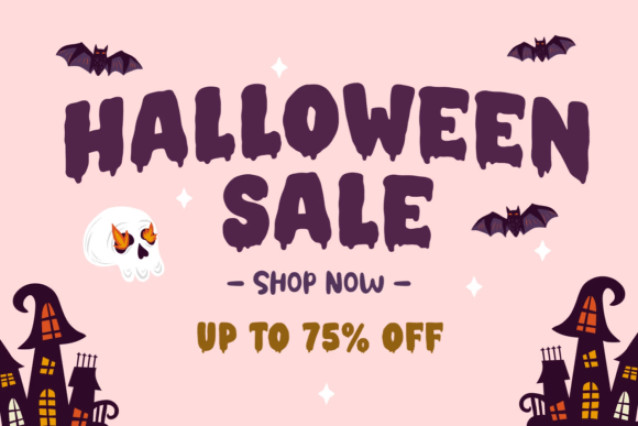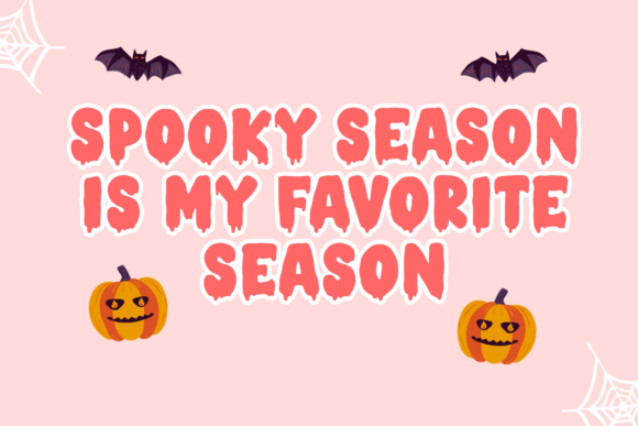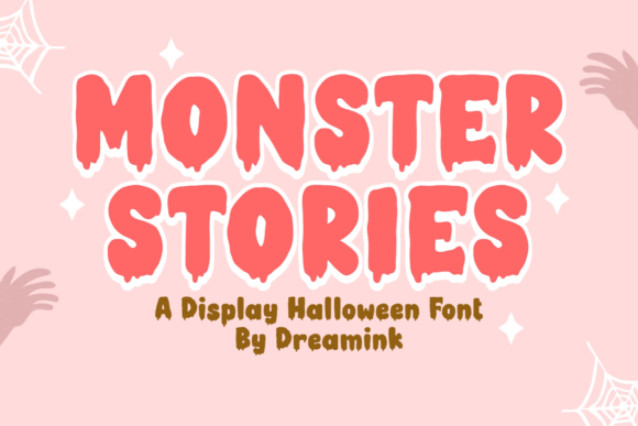
Monster Stories Typeface – A Display Halloween Font
Monster Stories is a bold and playful display font with a creepy-cute Halloween twist. Featuring chunky letterforms dripping with gooey details, this typeface instantly adds a spooky charm to your designs. Perfect for Halloween party invitations, haunted house posters, trick-or-treat bags, stickers, greeting cards, and more!
Its friendly yet eerie style makes it great for both kids’ and family-friendly Halloween projects, while still bringing that horror-inspired vibe. Whether you’re designing for print or digital, Monster Stories will make your text stand out with a fun and frightful personality.